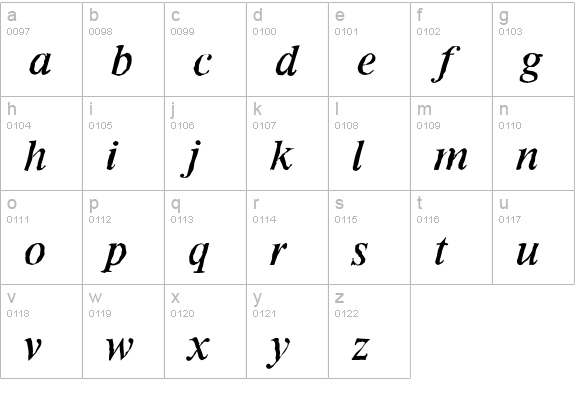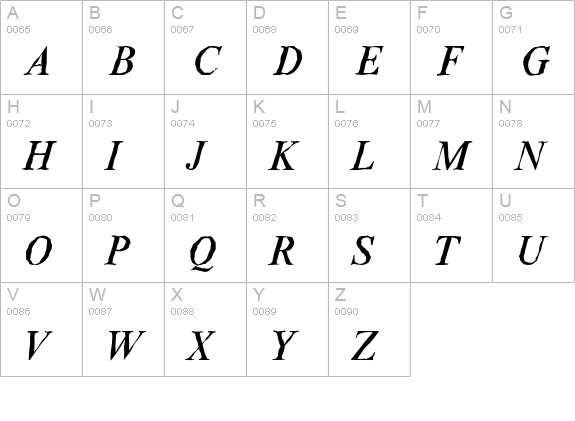
RiccioneAntique-Italic Font Details
RiccioneAntique-Italic is a distinctive, italic variant in the RiccioneAntique typeface family \xE2\x80\x94 well suited to design and typography projects.
RiccioneAntique-Italic is a timeless and elegant font that exudes charm and sophistication. Its delicate serifs and flowing lines give it a classic and refined appearance, making it perfect for adding a touch of vintage flair to your designs. This font is ideal for projects that require a touch of old-world beauty, such as wedding invitations, branding materials, and editorial layouts. The best part about RiccioneAntique-Italic is that it is available for free download at FontsMarket.com. This means that you can easily access this exquisite font without any cost, making it a valuable addition to your font collection. Don't miss out on the opportunity to enhance your designs with the beauty of RiccioneAntique-Italic – download it for free today!